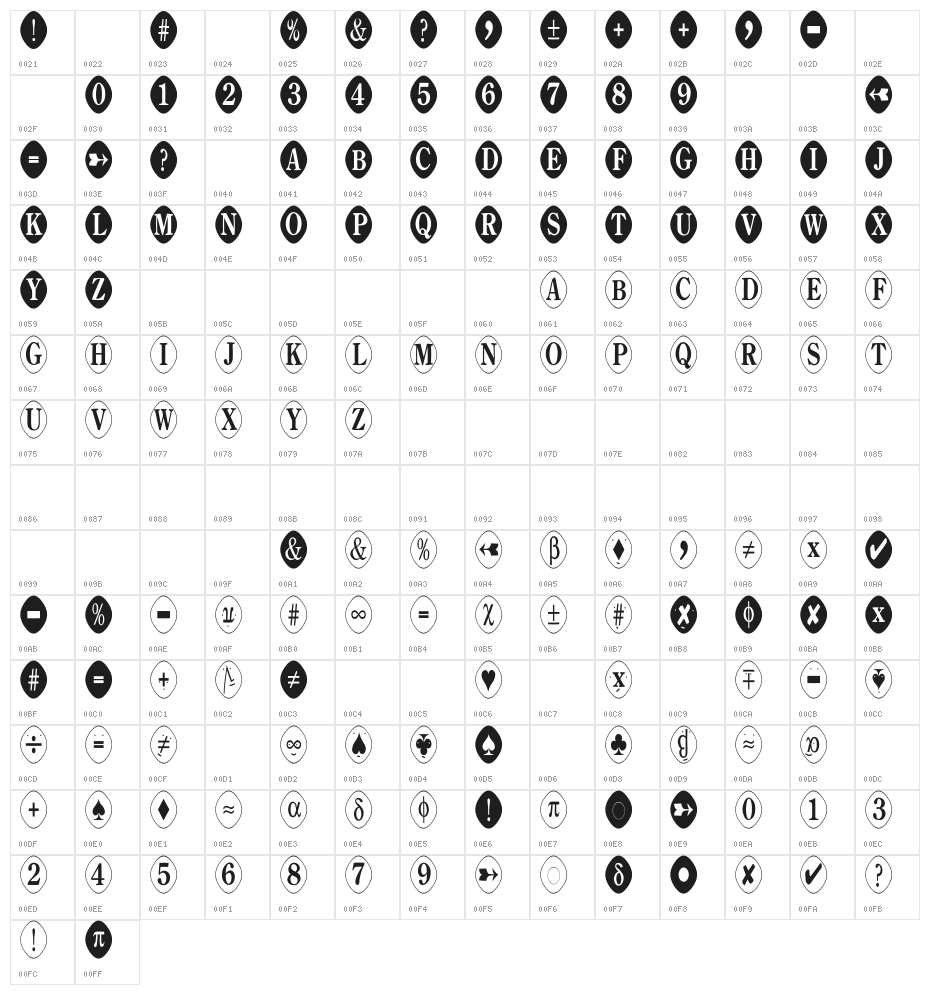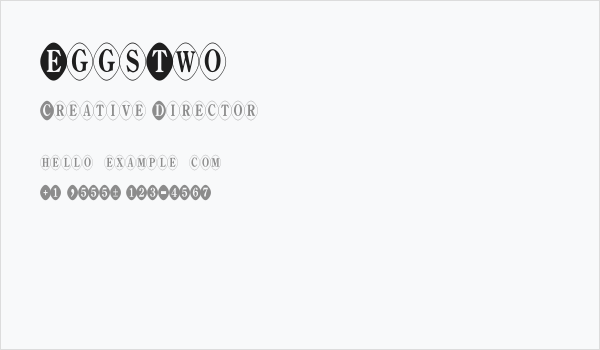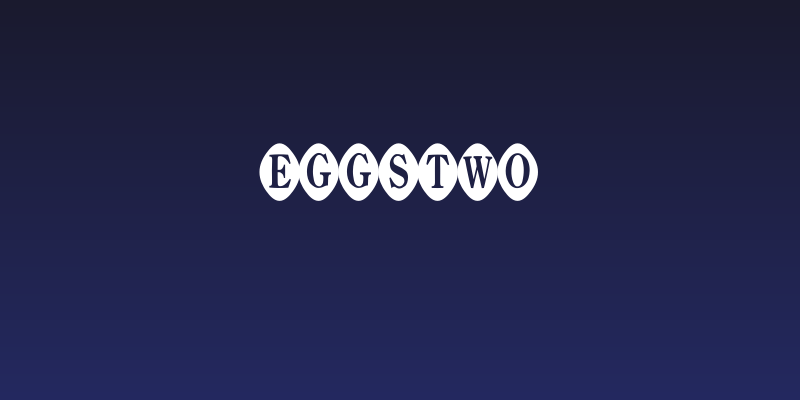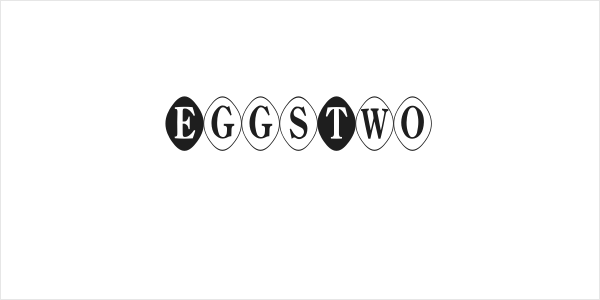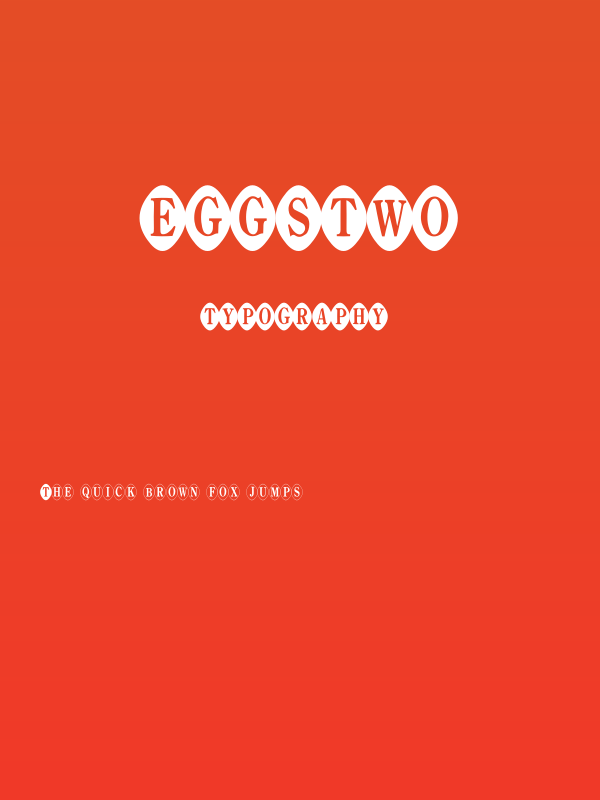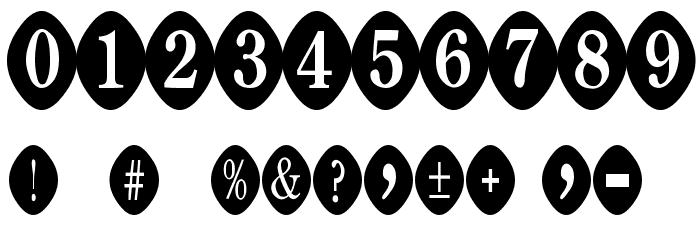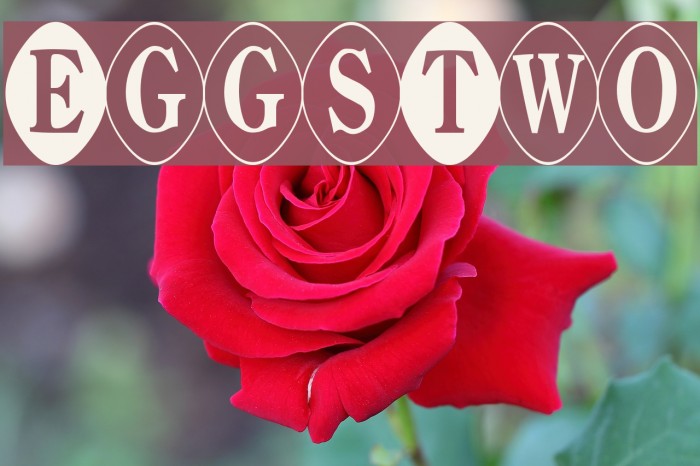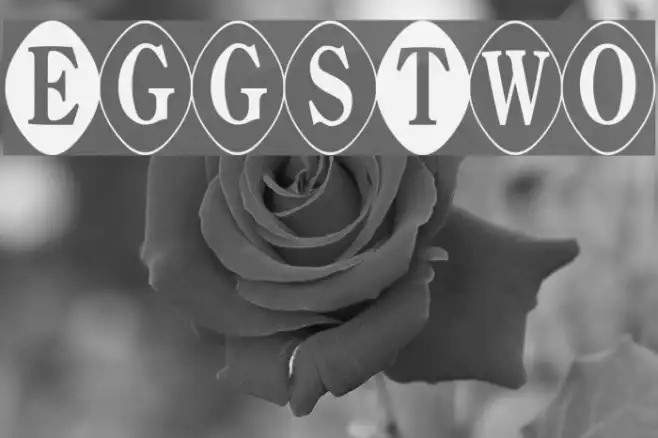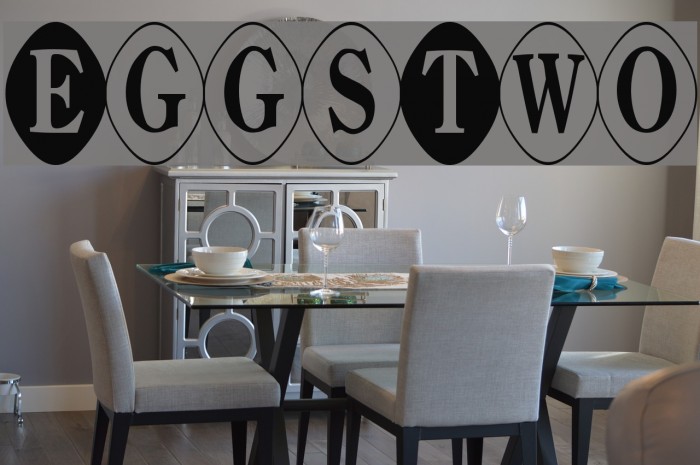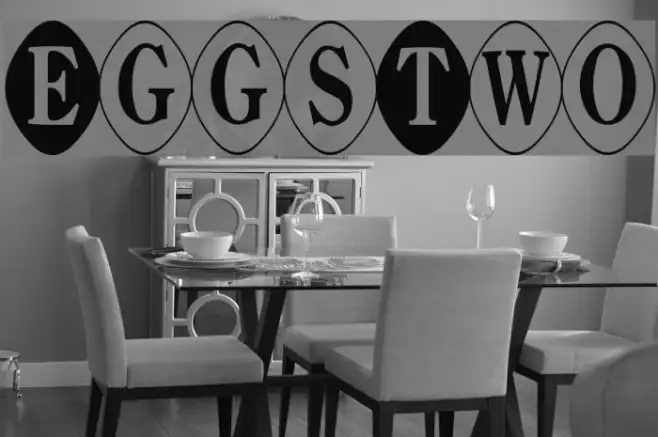
EggsTwo Font
EggsTwo Description
This font features a unique design where each character is enclosed within an oval shape, creating a distinct and eye-catching appearance. The uppercase and lowercase letters, along with numbers and special characters, are all consistently styled within these ovals. The letters themselves are bold and serifed, offering a classic and authoritative look. The contrast between the thick strokes of the letters and the thin lines of the ovals adds a dynamic visual interest. This font is particularly suitable for decorative purposes, where a strong visual impact is desired.
| Use Case | Logos, Posters, Branding |
| Proposed Projects | Ideal for logos, posters, and branding materials that require a bold and decorative touch. |